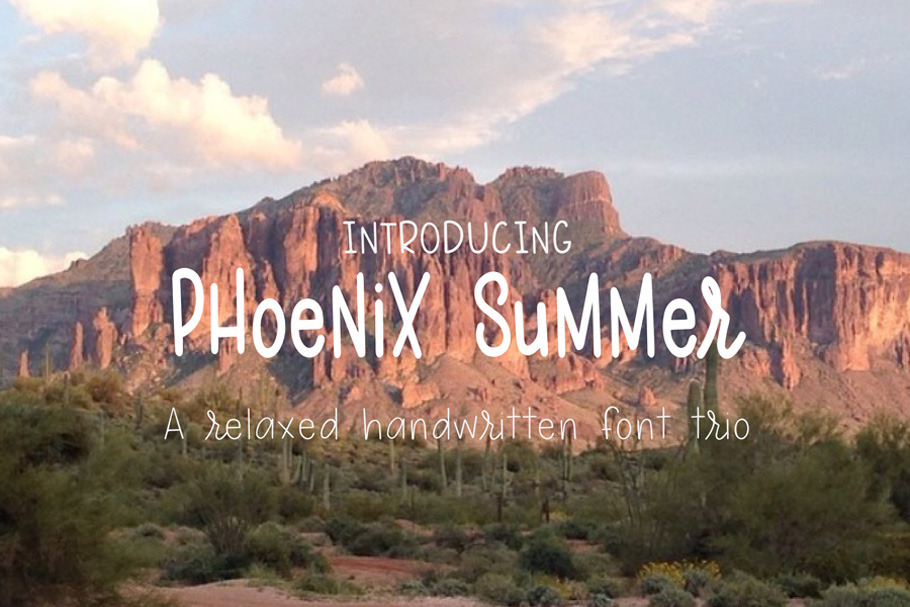
Phoenix Summer font Trio
Phoenix Summer is a relaxed, sans serif, handwritten font offering 3 different weights.
Phoenix Summer is designed to mix and match upper and lowercase characters to create a fun and unique look to your designs.
Perfect for greeting cards, stationary design, packaging, branding, prints and more. Pairs great with script fonts.